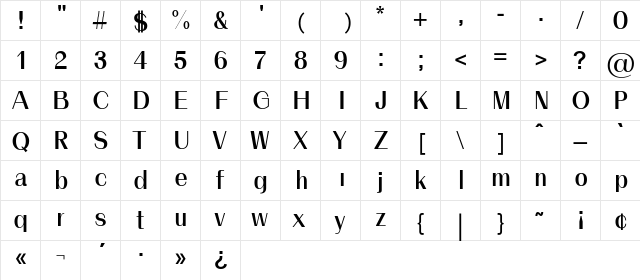
Sophia Regular
Design Context for Sophia Typeface
Sophia offers clean, dependable letterforms without strong stylistic allegiance, making it a practical choice for designers who need flexibility.
Pro Tip: Use Sophia in both headline and body roles to test its range before committing to a single application.